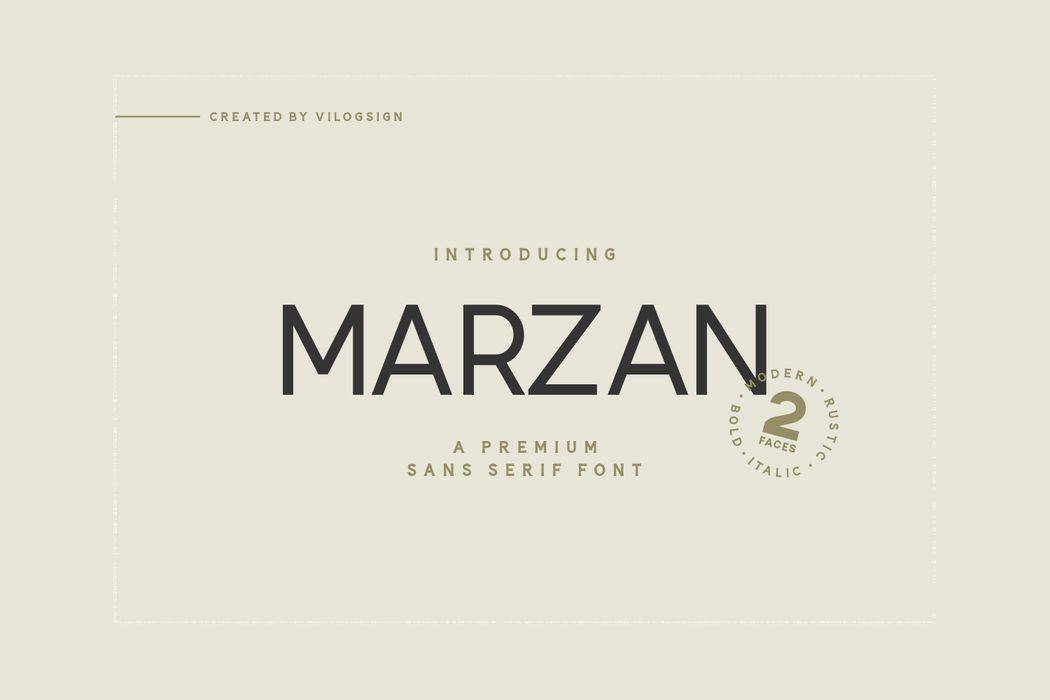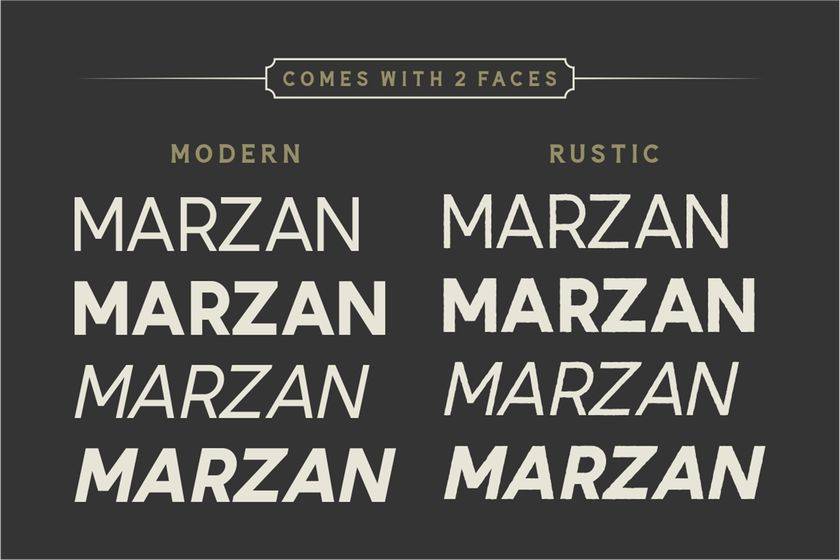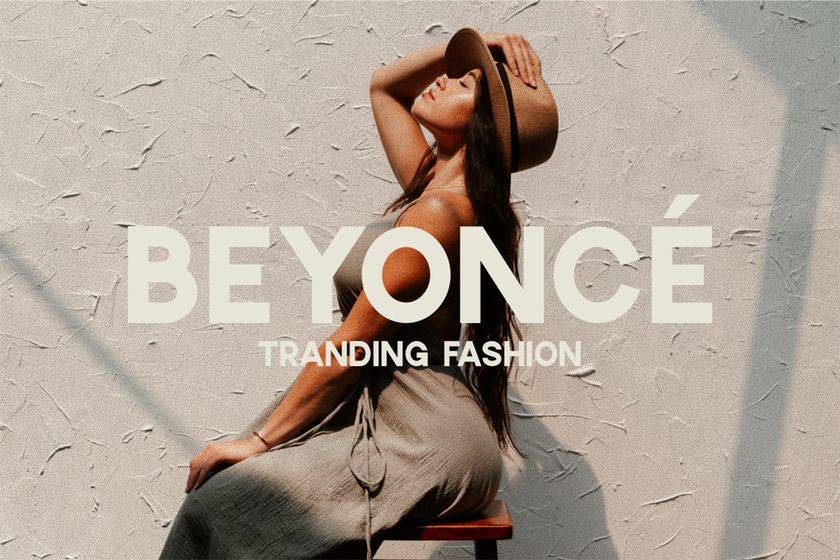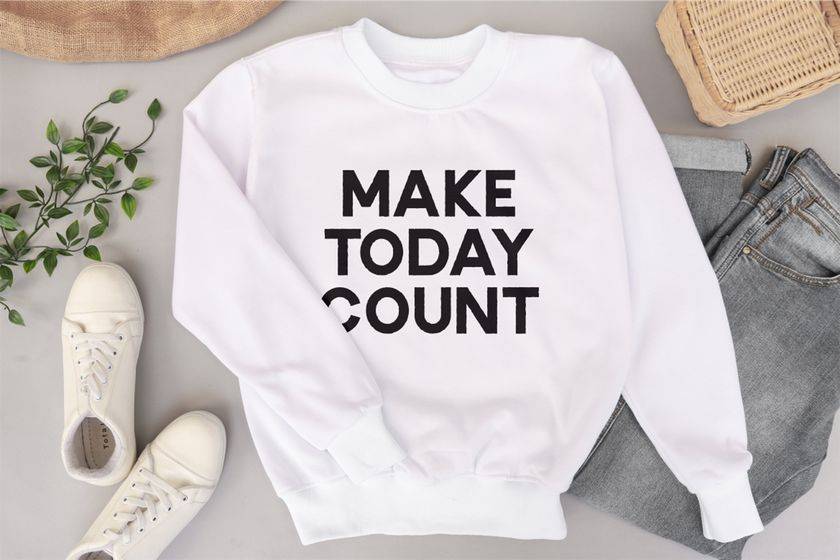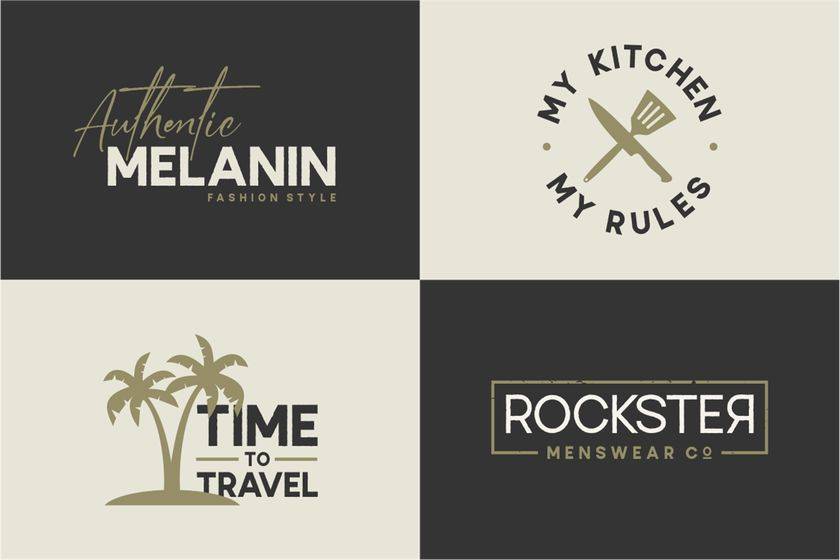
Marzan is a clean, modern sans serif font characterized by its tall x-height and sleek, geometric letterforms that convey clarity and precision. Its consistent stroke weight and open spacing give it a professional yet approachable feel, making it well-suited for branding, editorial headlines, and digital interfaces where readability and contemporary style are key. This font’s simplicity and elegance lend a versatile, sophisticated tone to a variety of design projects.
Marzan Font
About Marzan Font
| Designer | Vilogsign |